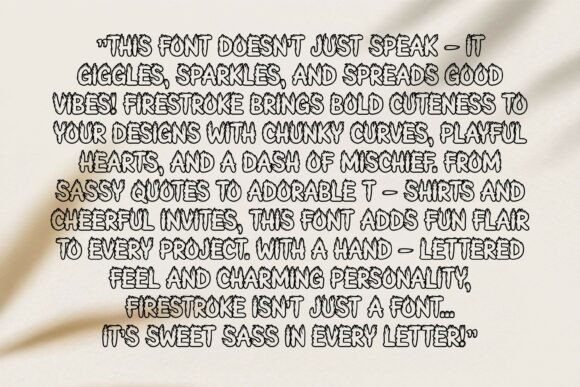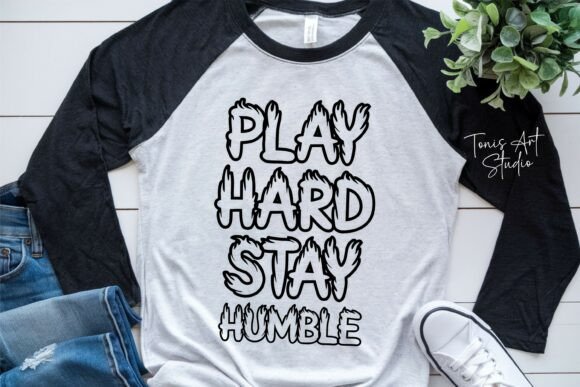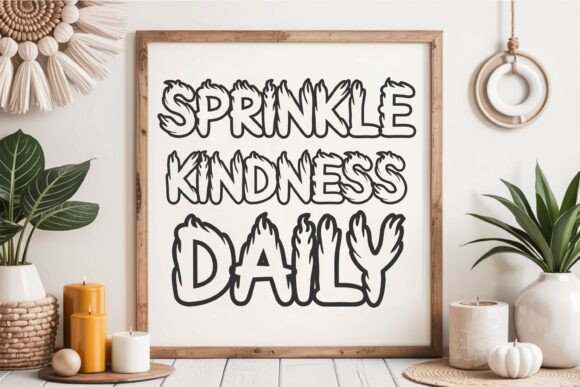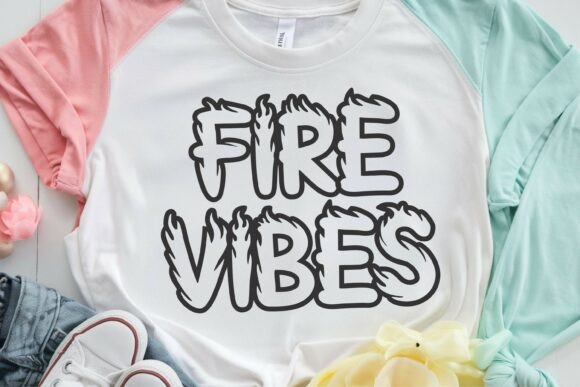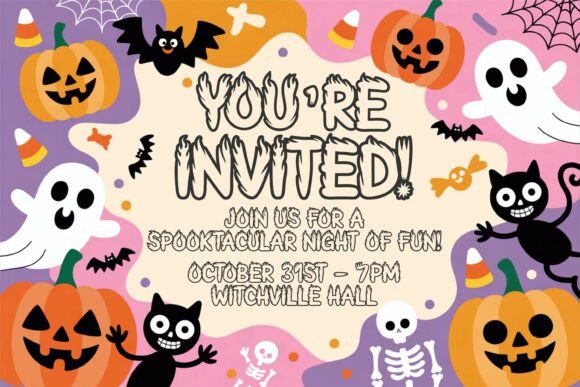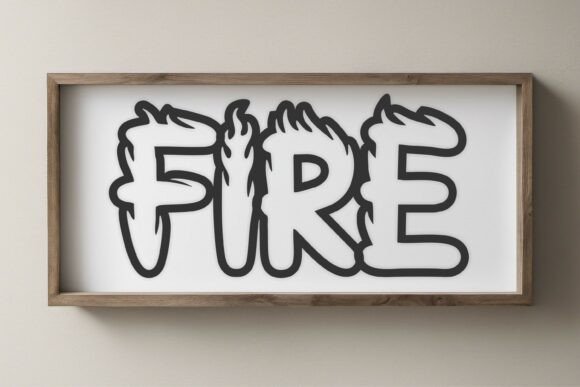
Ignite Your Designs with Firestroke Font: The Ultimate Flame Typeface
Are you looking for a bold and fiery display typeface that can add instant energy to your projects? Look no further than the Firestroke Font, a stunning flame font that is perfect for crafters, designers, and DIY enthusiasts. With its blazing flames, sharp edges, and bold strokes, this font is sure to make your designs stand out from the crowd.
What is Firestroke Font?
The Firestroke Font is a unique and eye-catching display typeface that is designed to resemble blazing flames. Each letter is carefully crafted to look alive with heat and fire, making it the perfect choice for bold projects that require a touch of warmth and energy. Whether you’re creating signs, shirts, mugs, or wall art, Firestroke Font is the ultimate choice for designers and crafters who want to make a statement.
Perfect for Cricut, Silhouette, Glowforge, CNC Machines, and Digital Crafting
One of the best things about Firestroke Font is its versatility. This flame font is perfect for use with cutting machines like Cricut, Silhouette, and Glowforge, as well as CNC machines. It’s also ideal for digital crafting, making it a great choice for designers and crafters who work with a variety of mediums. With Firestroke Font, you can create stunning projects that are sure to impress.
Endless Project Ideas with Firestroke Font
The Firestroke Font is incredibly versatile, and the project possibilities are endless. Here are just a few ideas to get you started:
- BBQ party signs and banners
- Grilling aprons and BBQ accessories
- Hot summer t-shirts and tank tops
- Halloween crafts and decorations
- Fiery wall art and signs
- Custom mugs and water bottles
- Party invitations and decals
Why Choose Firestroke Font?
So why choose Firestroke Font for your next project? Here are just a few reasons:
- Bold and eye-catching: Firestroke Font is a bold and eye-catching display typeface that is sure to grab attention.
- Instant energy: The flame design of Firestroke Font adds instant energy to any project.
- Perfect for crafters and designers: Firestroke Font is perfect for crafters and designers who work with a variety of mediums, including cutting machines and digital crafting.
- Endless project possibilities: The versatility of Firestroke Font means that you can use it for a wide range of projects, from signs and shirts to mugs and wall art.
Tips for Using Firestroke Font
Here are a few tips for using Firestroke Font in your projects:
- Use it boldly: Firestroke Font is a bold display typeface, so don’t be afraid to use it boldly. Experiment with large sizes and bright colors to make your designs pop.
- Pair it with complementary fonts: Firestroke Font can be paired with a variety of complementary fonts to add contrast and interest to your designs.
- Experiment with colors: The flame design of Firestroke Font looks great in a range of colors, from bright reds and oranges to deep purples and blues. Experiment with different colors to find the perfect look for your project.
If you’re looking for a bold and fiery display typeface that can add instant energy to your projects, look no further than Firestroke Font. With its blazing flames, sharp edges, and bold strokes, this flame font is perfect for crafters, designers, and DIY enthusiasts. Whether you’re creating signs, shirts, mugs, or wall art, Firestroke Font is the ultimate choice for bold projects that stand out. So why wait? Download Firestroke Font today and ignite your designs!